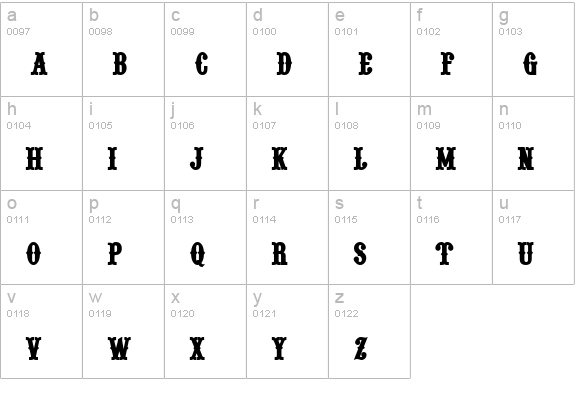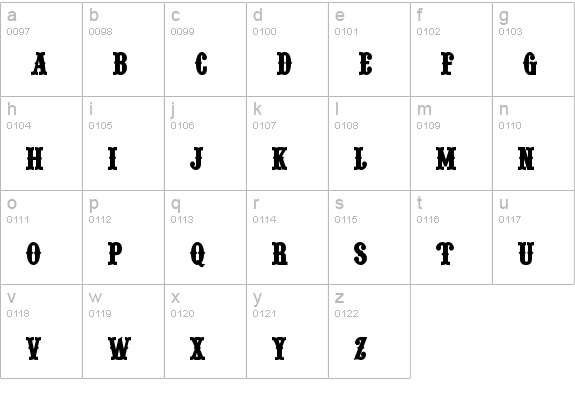
Pointedly Mad SmallCaps Font Details
Introducing Pointedly Mad SmallCaps font, a whimsical and quirky typeface that exudes a sense of playful elegance. With its distinctive small caps style and pointed edges, this font is perfect for adding a touch of personality to any project. Pointedly Mad SmallCaps font is freely available to download at FontsMarket.com, making it easily accessible for all your design needs. Whether you're creating invitations, branding materials, or social media graphics, this font will make your text stand out with its unique charm and flair. Embrace the creativity and individuality of Pointedly Mad SmallCaps font and let your words come to life in a bold and eye-catching way. Download it today and unleash your imagination with this charming and free-spirited typeface.